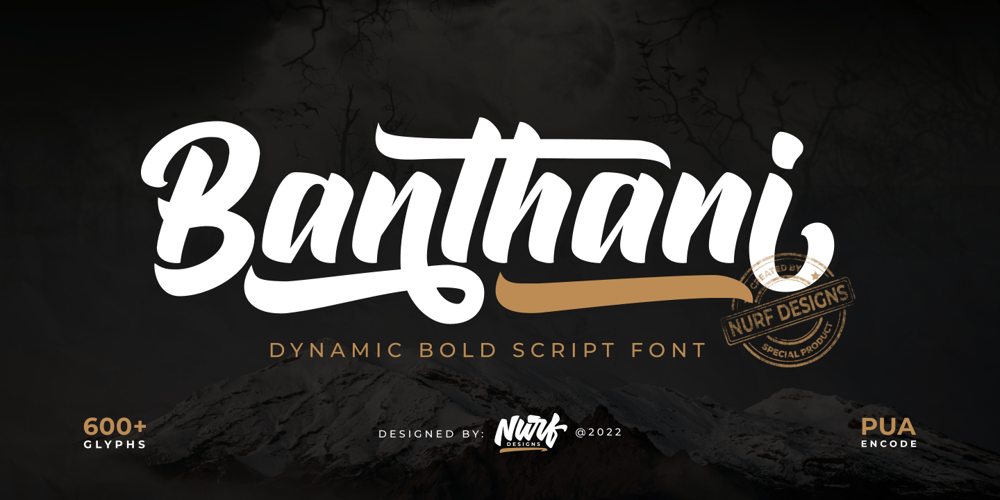
Banthani
Banthani font
Banthani Font Family was designed by Nur Faidin and published by Nurf Designs. Banthani contains 1 styles and family package options. Banthani is a dynamic bold script font. Inspired by its predecessor Raphtalia, it comes with a bold script style and is equipped with Opentype Features (Stylistic Alternate, Contextual Alternate, Ligature, etc.).You can get a different character in almost every glyph, you can choose it according to your design needs. We designed some characters to change “DYNAMICALLY” when they meet other characters, in order to create readability and harmony in each appearance.Banthani is very suitable for the needs of Logotype, Branding, Header and designs that require distinctive features. Works on PC & Mac Simple installations Accessible in the Adobe Illustrator, Adobe Photoshop, Adobe InDesign, even work on Microsoft Word. PUA Encoded Characters – Fully accessible without additional design software.